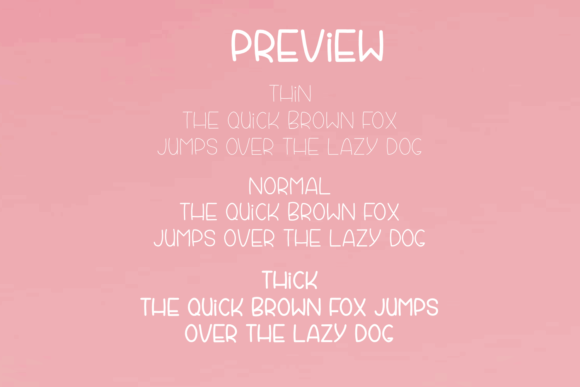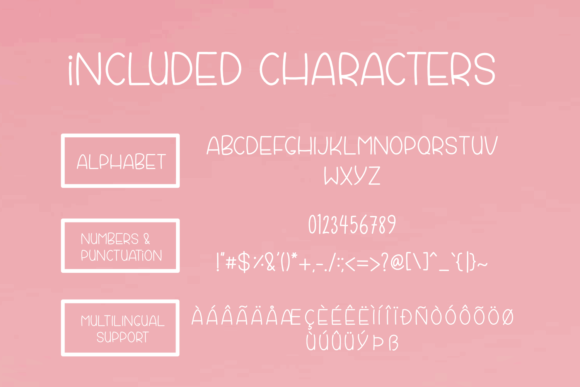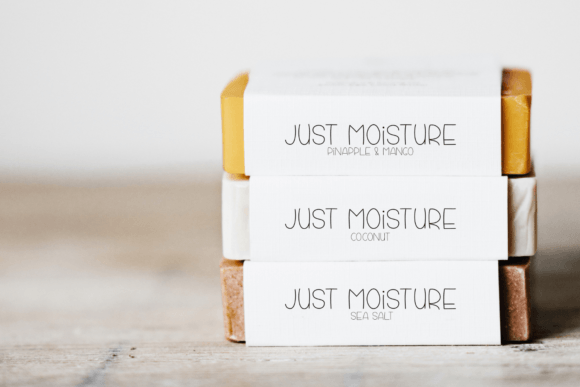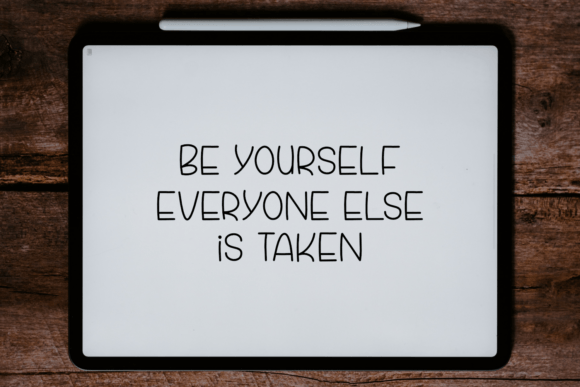
Introduction to Little Rainbow Font
Have you ever been working on a creative project, pouring your heart and soul into it, and just needed that special something to make it pop? I know I have! For me, it’s often a font that brings a project to life. That’s why I’m excited to share with you the Little Rainbow Font, a free download that’s sure to add a touch of whimsy to any design.
As a designer, you know how important it is to have a reliable design resource that can elevate your work. The Little Rainbow Font is just that – a high-quality, cute handwritten font featuring simple characters and a dainty appearance that’s perfect for adding a personal note to any creation. With its transparent background, you can use it on any design without worrying about a distracting background.
Key Features of Little Rainbow Font
- Unique, hand-drawn design with a playful and whimsical feel, perfect for creative projects and design resources.
- Perfect for use in logos, branding, and other creative projects where a touch of personality is needed.
Honest Review: Little Rainbow Font
As a designer, I’m always on the lookout for high-quality design resources that can elevate my creative projects. Recently, I came across the Little Rainbow Font, which initially caught my eye with its vibrant and playful aesthetic.
- ✨ The font is highly customizable, allowing users to adjust the color and size of the rainbow elements to suit their design needs.
- ✨ The transparent background option provides versatility in terms of design possibilities.
- ⚠️ The font is not suitable for formal or professional designs, as its playful nature may not be suitable for all audiences.
Overall, I think the Little Rainbow Font is a great addition to any designer’s toolkit. While it may not be suitable for all projects, its high quality and versatility make it a valuable resource for creative designers. With some careful planning and consideration, this font can add a pop of color and fun to your designs.
Common Use Cases for Little Rainbow Font
The Little Rainbow Font is perfect for creating a unique and eye-catching graphic for your social media, blog, or website. It’s also great for designing promotional materials, such as flyers and brochures, or for creating a visually appealing presentation or document.